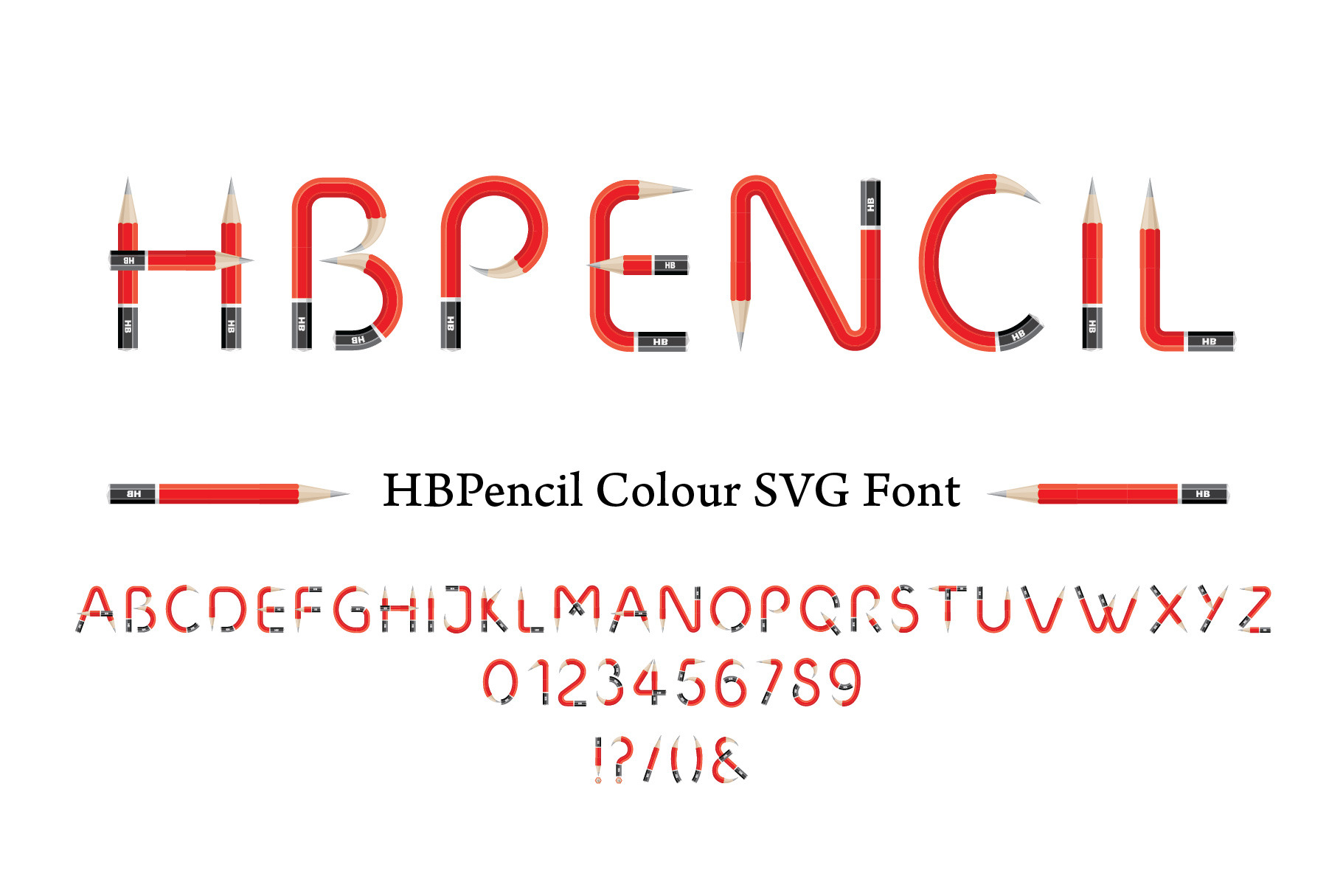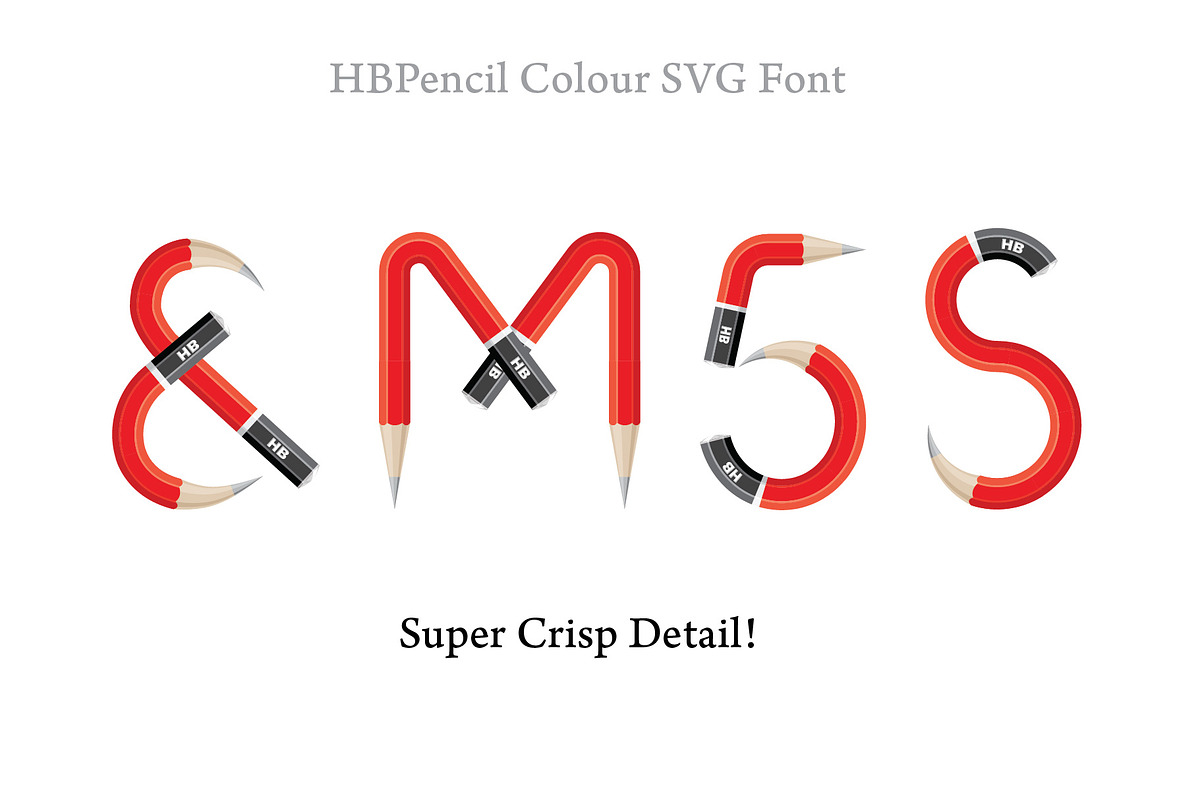
HBPENCIL SVG Font
HBPencil is a quirky Colour SVG Font made of a red and black HB pencil. The font includes all standard upper case characters as seen in the preview image.